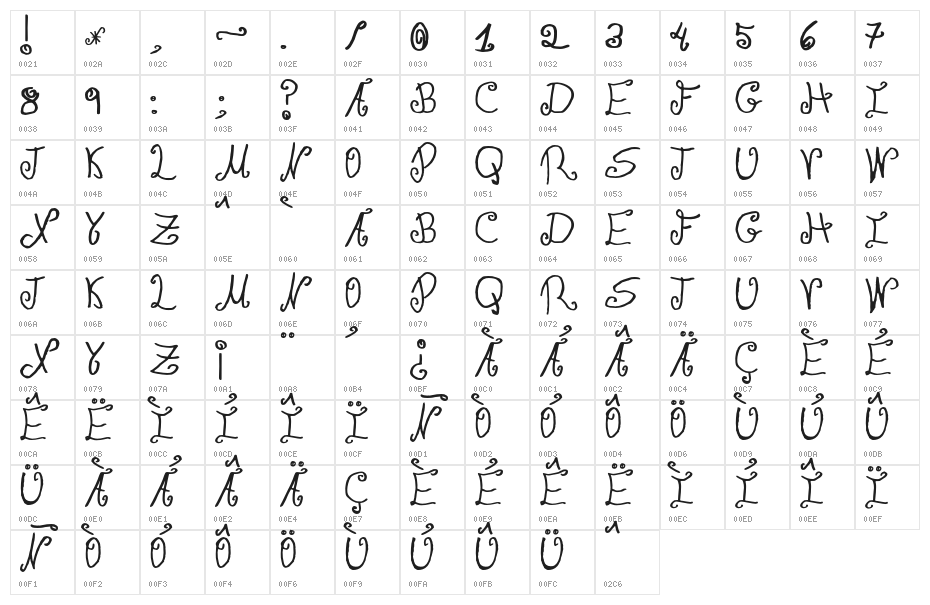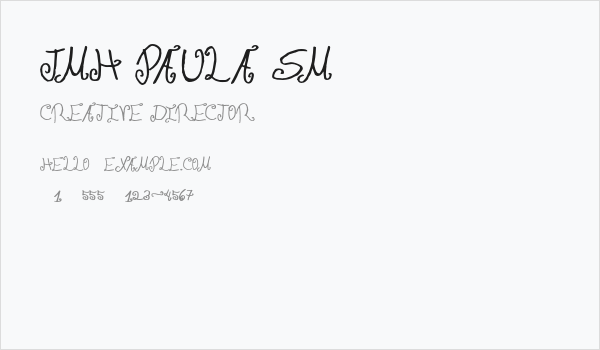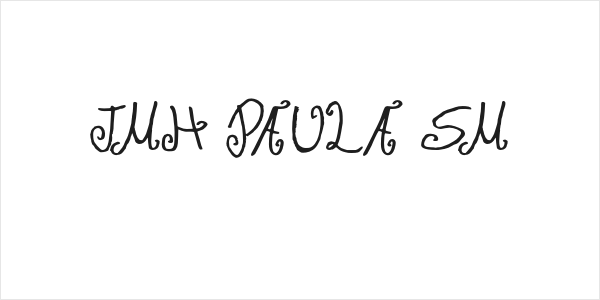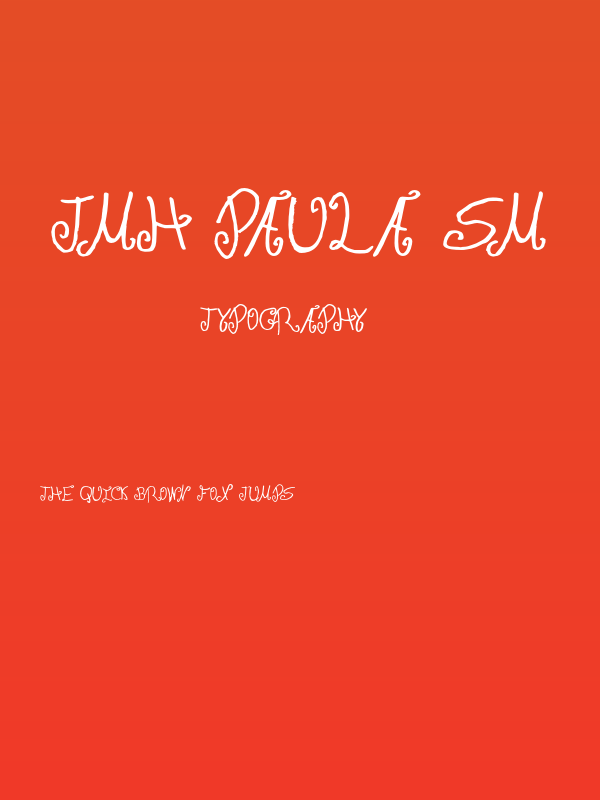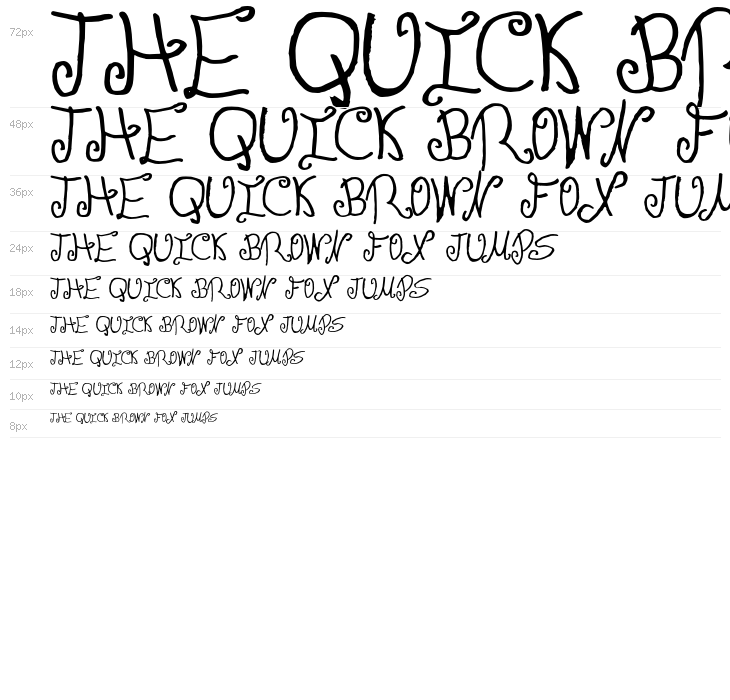
JMH Paula SM Font
JMH Paula SM Description
This font features a whimsical and decorative style, characterized by its playful curls and loops at the ends of each letter. The uppercase and lowercase letters maintain a consistent design, with each character exhibiting unique flourishes that add to its charm. The numbers follow the same decorative theme, making them stand out with their bold and artistic presentation. Special characters are also creatively designed, enhancing the overall aesthetic. This font is perfect for projects that require a touch of elegance and creativity, such as invitations, greeting cards, and artistic branding.
| Use Case | Headlines, Artistic projects, Invitations |
| Proposed Projects | Ideal for invitations, greeting cards, artistic branding, and creative projects. |